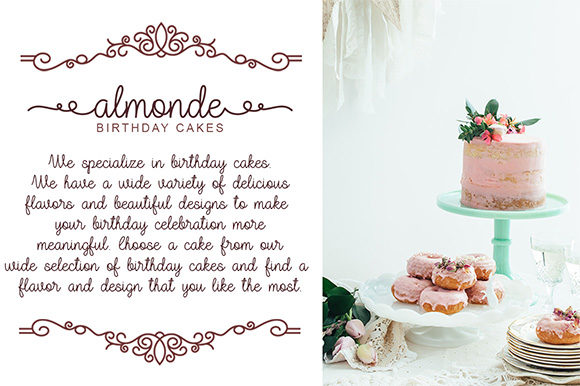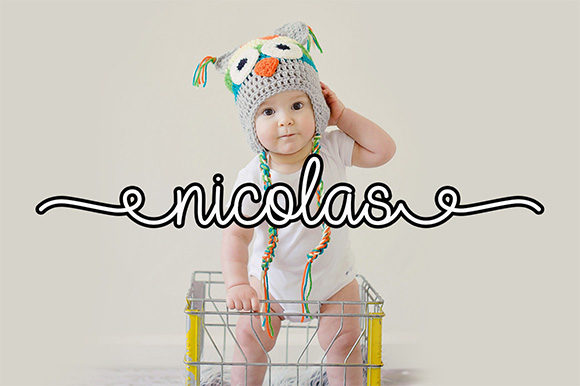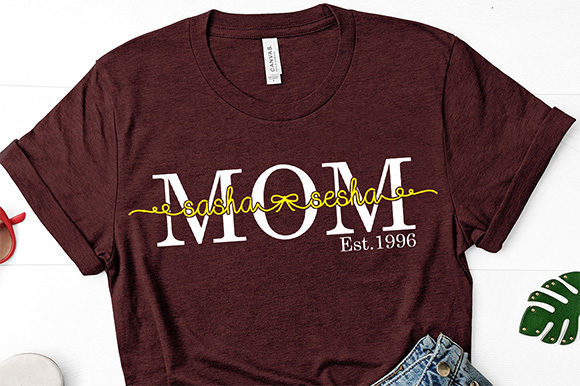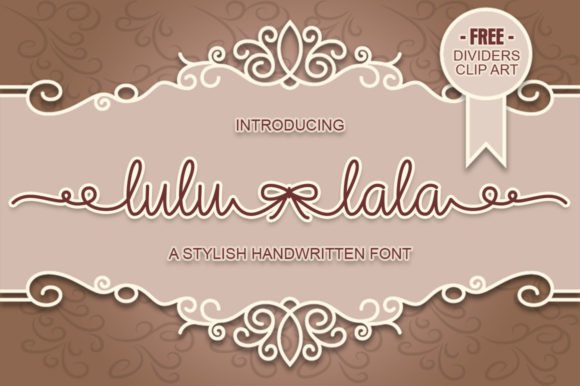
Introduction to Lulu-Lala Font
Lulu-Lala is a cute and charming handwritten font with a unique twist.
Get inspired by its classic appeal .
Key Features of Lulu-Lala Font
Why Choose Lulu-Lala Font?
Lulu-Lala Font offers exceptional quality and versatility, making it a valuable addition to your design toolkit. Whether you’re creating for personal projects or commercial use, Lulu-Lala Font delivers professional results.